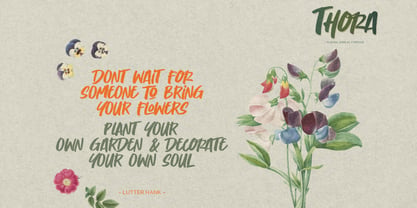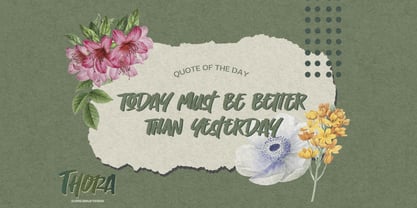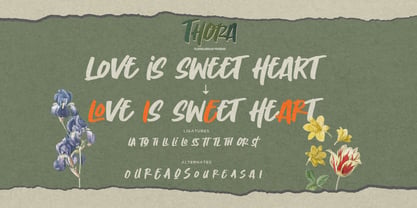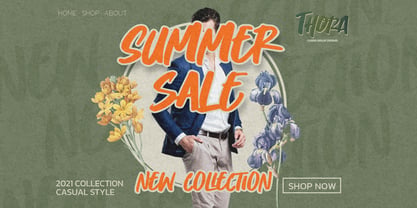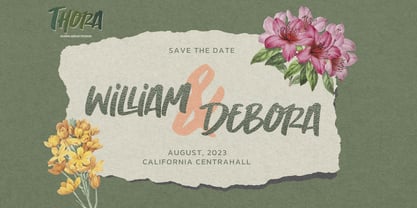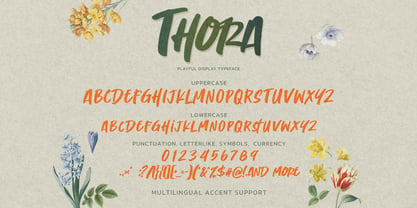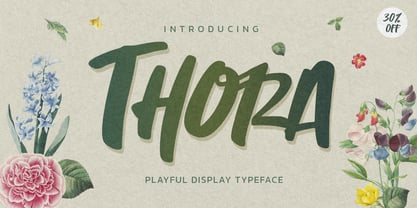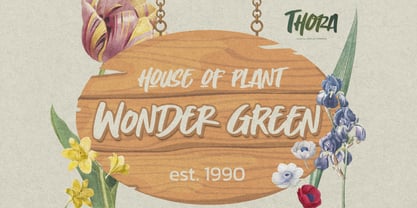
Thora
von Almarkha Type
Die Schriftfamilie Thora wurde von Abdul Malik Wisnu entworfen und von Almarkha Type veröffentlicht. Thora enthält 1 Stile. Mehr über diese Familie
THORA is a lively and expressive display typeface inspired by natural flow, soft curves, and organic hand-drawn strokes. It brings a warm, joyful, and whimsical feeling, adding a refreshing touch to any layout with its friendly character and artistic charm. With smooth brush details and a lighthearted personality, THORA beautifully complements designs that embrace creativity, elegance, and a touch of nature, making it perfect for projects that require a welcoming and visually delightful presence.
Designer: Abdul Malik Wisnu
Foundry: Almarkha Type